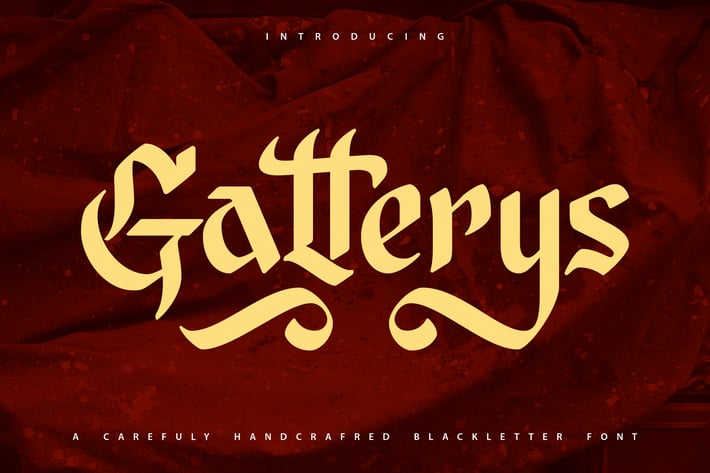
Gatterys | Handcrafted Blackletter Font
Gatterys | Handcrafted Blackletter Font with a calligraphy style, So beautiful on invitation like greeting cards, branding materials, business cards, quotes, posters, and more!